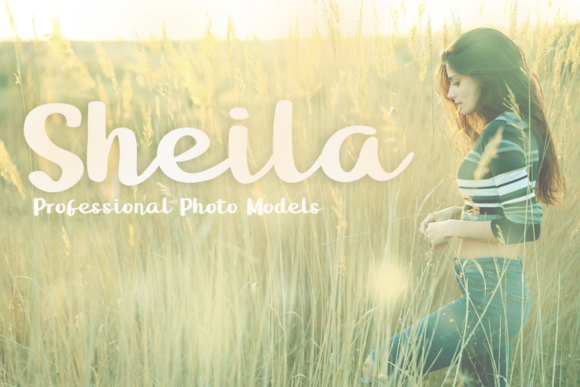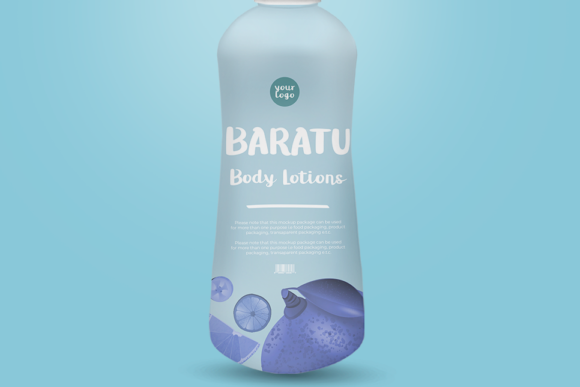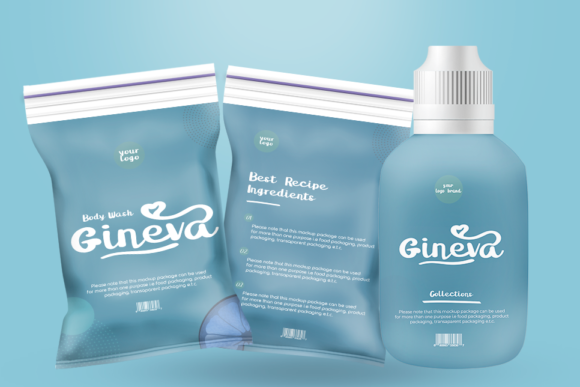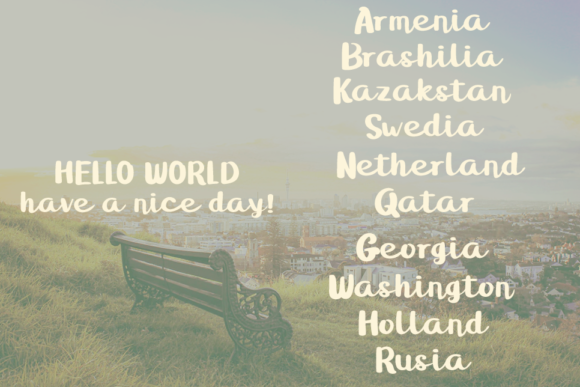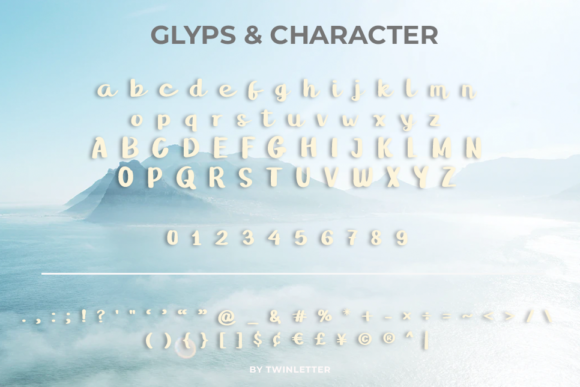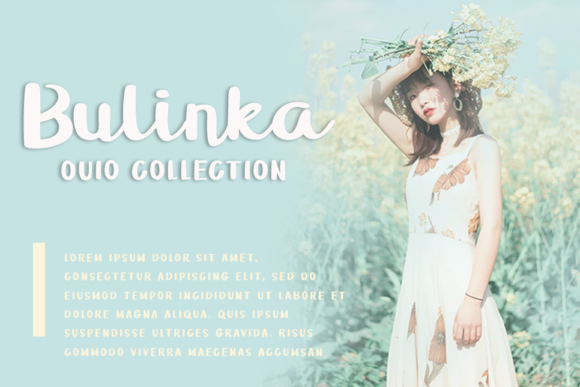
Gineva Font: Elevate Your Designs with Timeless Elegance
In the world of typography, few fonts manage to strike a balance between classic sophistication and friendly approachability. Gineva Font is one such exceptional typeface that brings together the best of both worlds. This magical handwritten font is carefully crafted with a touch of elegance, making it an ideal choice for designers and crafters looking to add a dash of refinement to their creations.
The Essence of Gineva Font
Gineva is more than just a font; it’s a blend of timeless elegance and authentic calligraphy. Its incredibly classic style is reminiscent of traditional calligraphic techniques, while its friendly feel ensures that it remains approachable and relatable. This unique combination makes Gineva the perfect font for making original and outstanding designs that stand out from the crowd.
Key Features of Gineva Font
- Handwritten Elegance: Gineva boasts a beautifully handwritten style that exudes elegance and sophistication.
- Timeless Appeal: The font’s classic style ensures that it remains relevant and stylish, even as design trends evolve.
- Authentic Calligraphy: Gineva’s roots in traditional calligraphy give it an authentic feel that’s hard to replicate with digital fonts.
- Friendly Approachability: Despite its elegance, Gineva remains approachable and friendly, making it suitable for a wide range of design projects.
Why Choose Gineva Font?
For designers and crafters, the right font can make all the difference in elevating a project from ordinary to extraordinary. Gineva Font offers a range of benefits that make it an attractive choice for various design applications:
- Versatility: Gineva’s unique blend of elegance and friendliness makes it suitable for a wide range of projects, from wedding invitations and branding materials to digital content and packaging.
- Originality: With Gineva, you can create original and outstanding designs that reflect your unique style and vision.
- Easy to Read: The font’s clear and legible design ensures that your message is communicated effectively, without compromising on style.
Using Gineva Font in Your Designs
Whether you’re a seasoned designer or a crafty DIY enthusiast, incorporating Gineva Font into your projects is easy and straightforward:
- Digital Projects: Use Gineva in your digital designs, such as social media graphics, blog posts, and email newsletters, to add a touch of elegance and sophistication.
- Print Materials: Gineva is perfect for print projects, including business cards, brochures, and posters, where its classic style and friendly feel can shine.
- Crafting: For crafters, Gineva can be used in a variety of creative projects, such as handmade cards, scrapbooking, and journaling.
Tips for Getting the Most Out of Gineva Font
To maximize the impact of Gineva Font in your designs, consider the following tips:
- Experiment with Colors: Pair Gineva with a range of colors to create unique and eye-catching combinations that reflect your brand or personal style.
- Mix and Match: Combine Gineva with other fonts to create visually interesting and dynamic designs.
- Pay Attention to Spacing: Ensure that your text is easy to read by paying attention to spacing and kerning.
Gineva Font is a truly exceptional typeface that offers a unique blend of timeless elegance and friendly approachability. Its versatility, originality, and ease of use make it an ideal choice for designers and crafters looking to elevate their projects and add a touch of sophistication. Whether you’re working on digital or print projects, Gineva is sure to become a go-to font in your design arsenal.